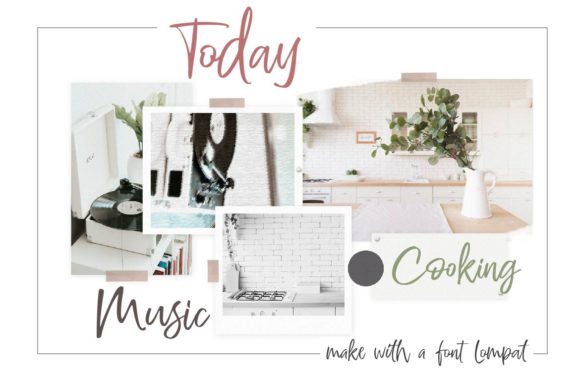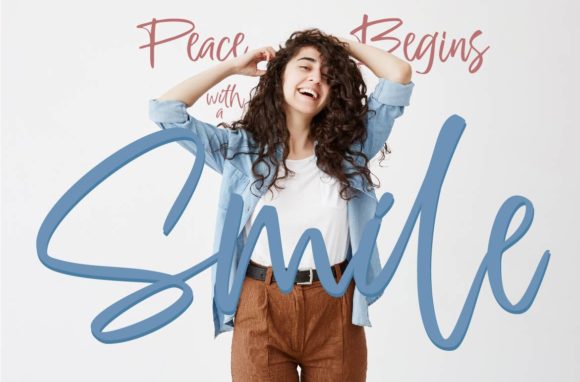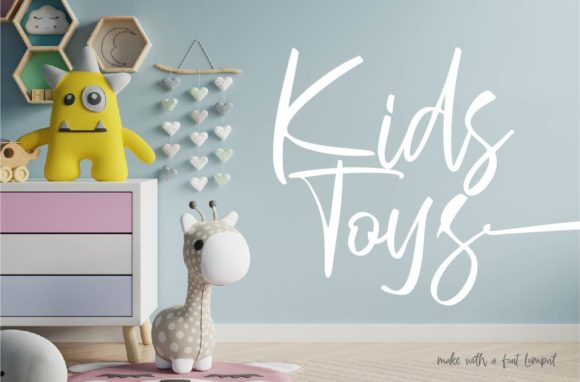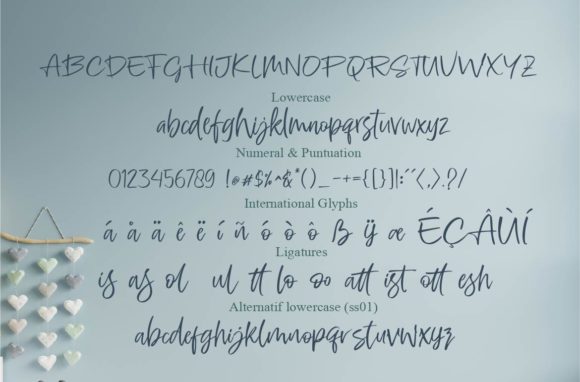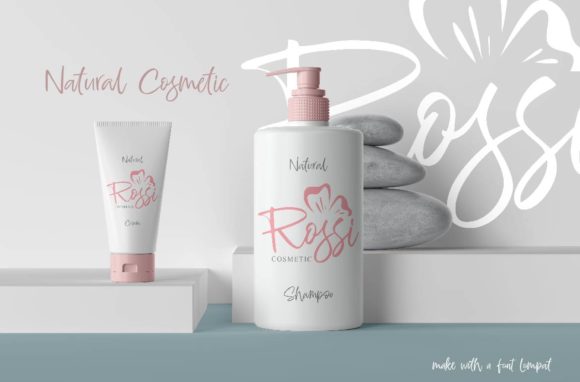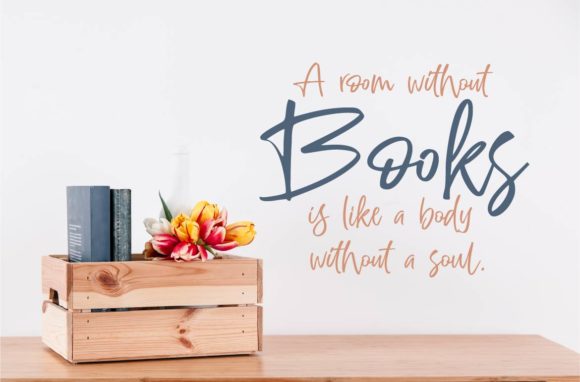
Introduction to Lompat Font
You know that feeling when you’re working on a creative project and everything just falls into place? The words flow effortlessly, the colors pop, and the design comes alive. For designers, that moment is priceless. And it’s exactly what the Lompat Font can help you achieve.
Imagine adding a touch of whimsy and personality to your designs with a font that’s as sweet as it is quirky. The Lompat Font is more than just a design resource – it’s a game-changer. With its high-quality, handwritten style, it’s perfect for adding a human touch to your work. Plus, with a transparent background, you can easily layer it over other design elements to create a truly unique look.
Key Features of Lompat Font
- Unique, hand-drawn design suitable for creative projects requiring a personal touch.
- Comes with a transparent background, making it easy to layer and customize in your design.
Honest Review: Lompat Font
I recently had the chance to work with the Lompat Font, and I must say it’s been a game-changer for my creative projects. This font is perfect for designers who want to add a touch of elegance and sophistication to their designs.
- ✨ High-quality design: The Lompat Font is incredibly well-designed, with smooth lines and a clean aesthetic.
- ✨ Versatile usage: This font is suitable for a wide range of creative projects, from logos and branding to typography-based art.
One thing to note is that the Lompat Font has a transparent background, which can sometimes be a bit tricky to work with. Additionally, the font may not be suitable for all types of projects, especially those that require a bold or dramatic look.
- ⚠️ Transparency limitations: The transparent background can be a bit finicky to work with, especially when layering multiple elements.
- ⚠️ Limited dramatic impact: The Lompat Font may not be the best choice for projects that require a bold or dramatic look.
Overall, I’m thoroughly impressed with the Lompat Font. Its high-quality design and versatility make it an excellent addition to any designer’s toolkit. With a little practice, you’ll be creating stunning designs in no time!
Lompat Font
Using Lompat Font with a Transparent Background
When using Lompat Font with a transparent background, make sure to use the font with a high-quality image or design that complements the font’s style.
Lompat Font is perfect for use in creative projects such as:
- Logo designs
- Posters
- Websites
Alternatives to Lompat Font
Abril Fatface is a high-quality, elegant script font ideal for creative projects that require a touch of sophistication. It’s perfect for wedding invitations, branding, and other design elements where a delicate, handwritten feel is desired. Abril Fatface offers a more refined look compared to Lompat Font, with a more transparent background and intricate details.
Playfair Display is a luxurious, high-quality serif font that’s perfect for creating a sense of drama and elegance in your design. It’s ideal for creative projects that require a sophisticated and refined look, such as branding, magazines, and high-end websites. Compared to Lompat Font, Playfair Display has a more classic and timeless feel, making it a great choice for projects where a traditional look is desired.
Great Vibes is a modern, high-quality script font that’s perfect for creative projects that require a fun and energetic feel. It’s ideal for branding, social media, and other design elements where a playful and casual look is desired. Compared to Lompat Font, Great Vibes has a more laid-back and relaxed feel, making it a great choice for projects where a carefree vibe is desired.
Is Lompat Font a high-quality font suitable for professional design projects?
Yes, Lompat Font is a high-quality font designed for professional design projects. It features a clean and modern design, making it perfect for use in creative projects such as branding, packaging, and advertising. The font is also highly customizable, allowing you to adjust the font size, color, and style to suit your design needs.